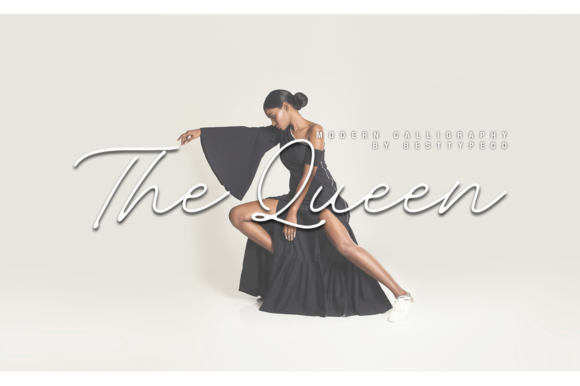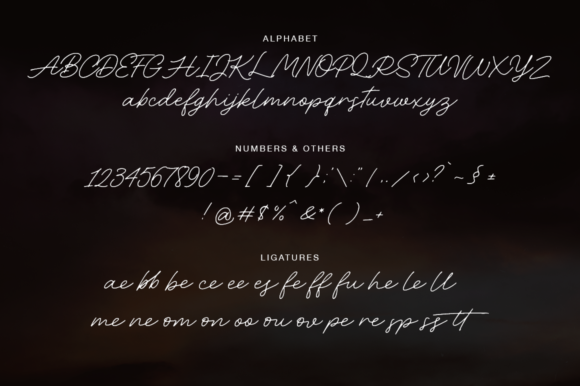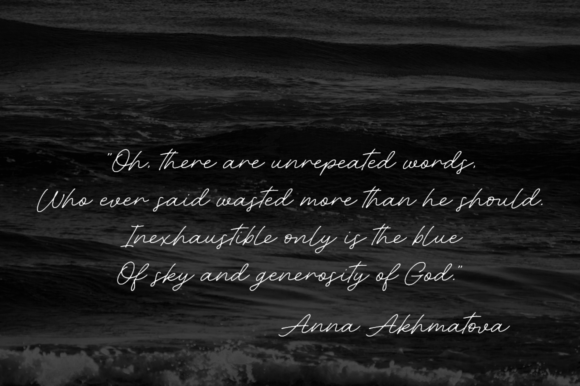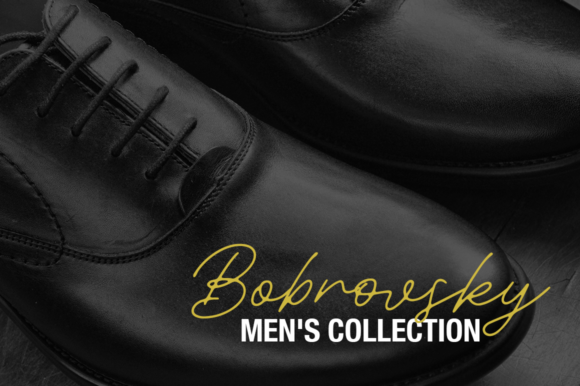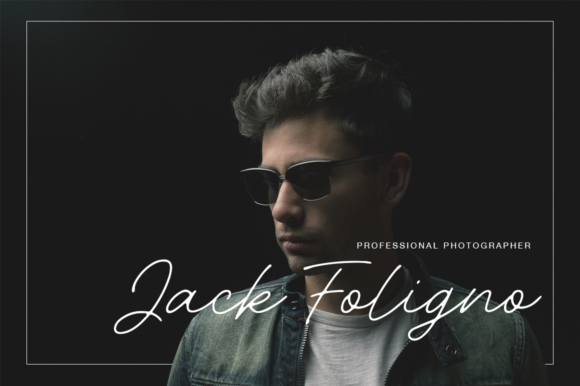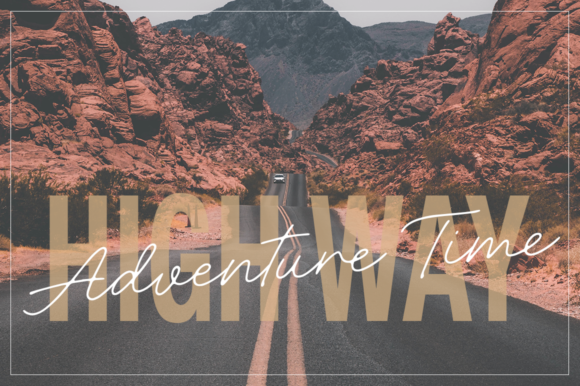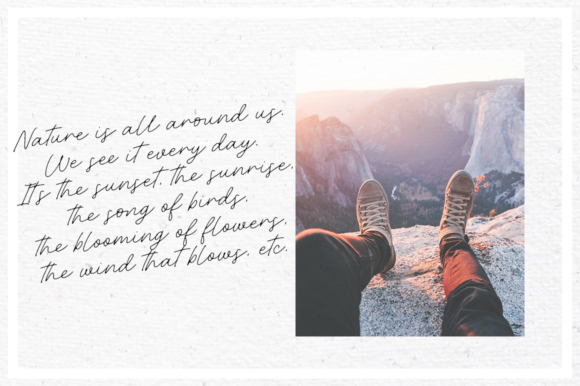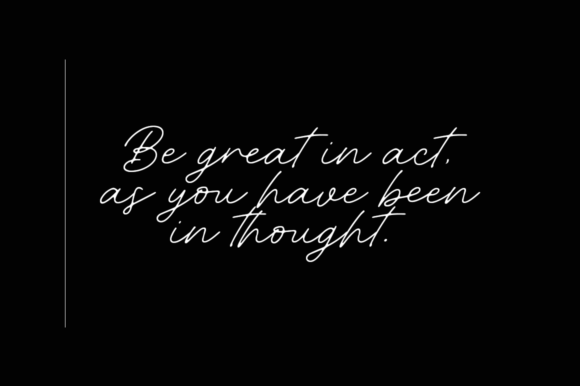
The Queen Font
About The Queen Font
The Queen is a fresh handmade calligraphy font. It’s suitable for greeting cards, branding materials, business cards, quotes, posters, and more!